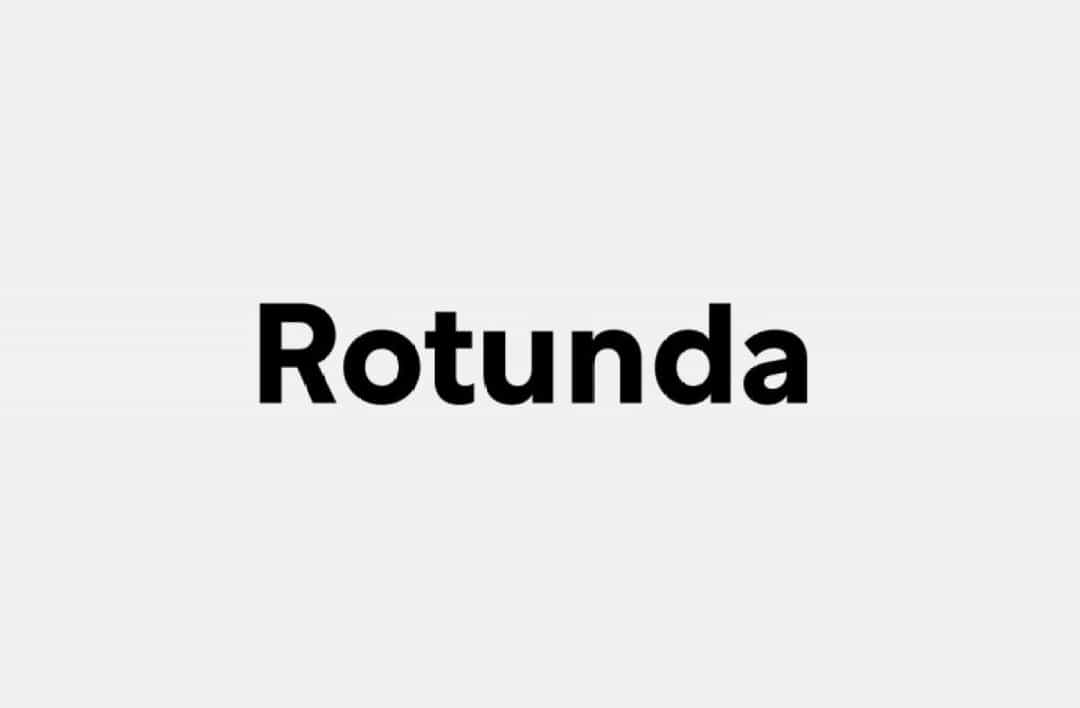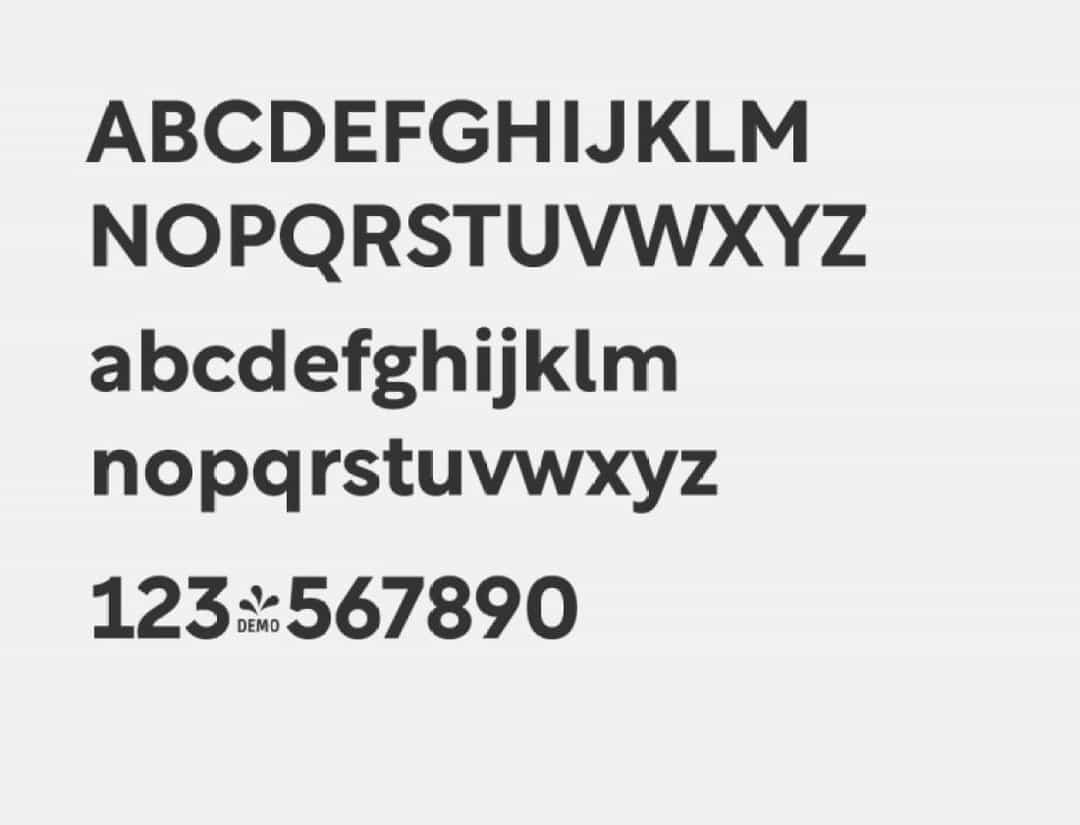
Rotunda Font is an all-weather font due to its large characters and numerous factors that combine all three styles: humanist, geometric and gross. Not an unappealing mix at all! With British undertones making for a chic and elegant classic font. Thanks to these large characters it provides versatility.